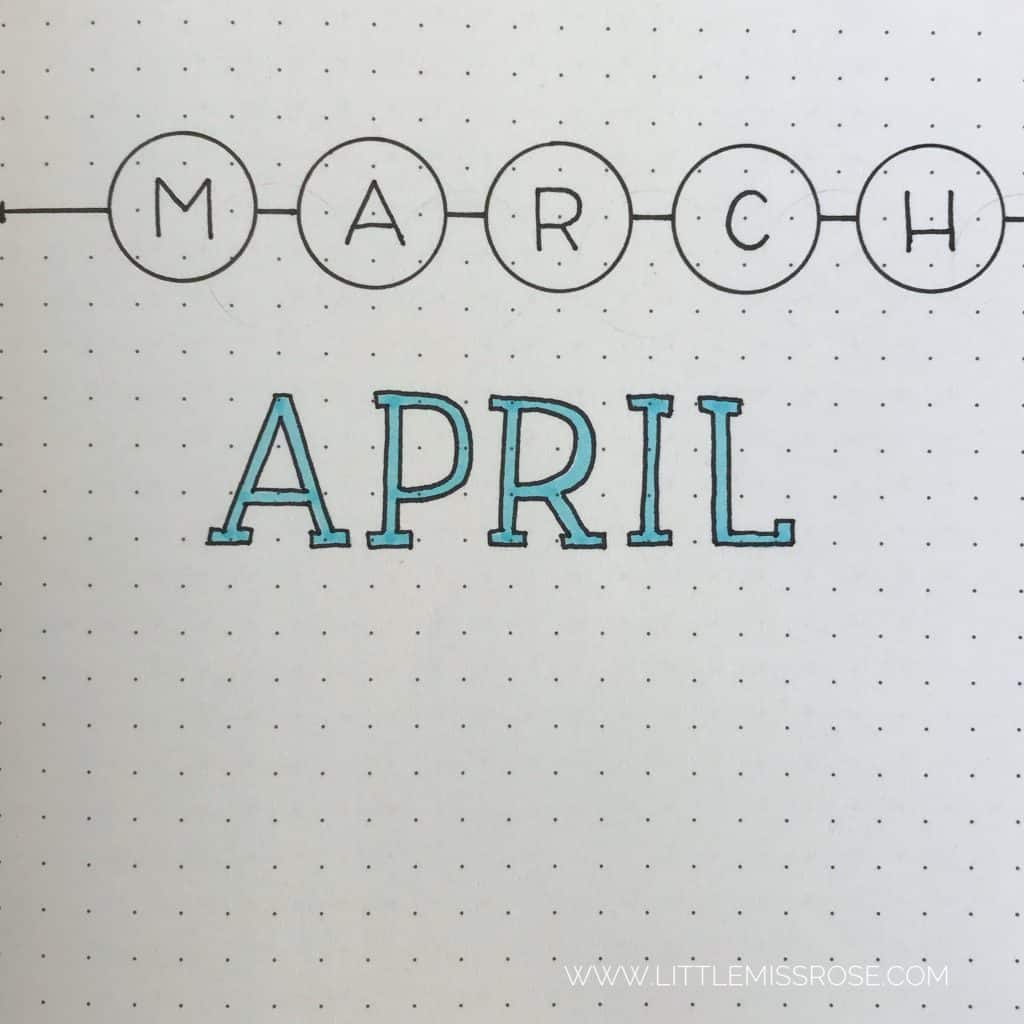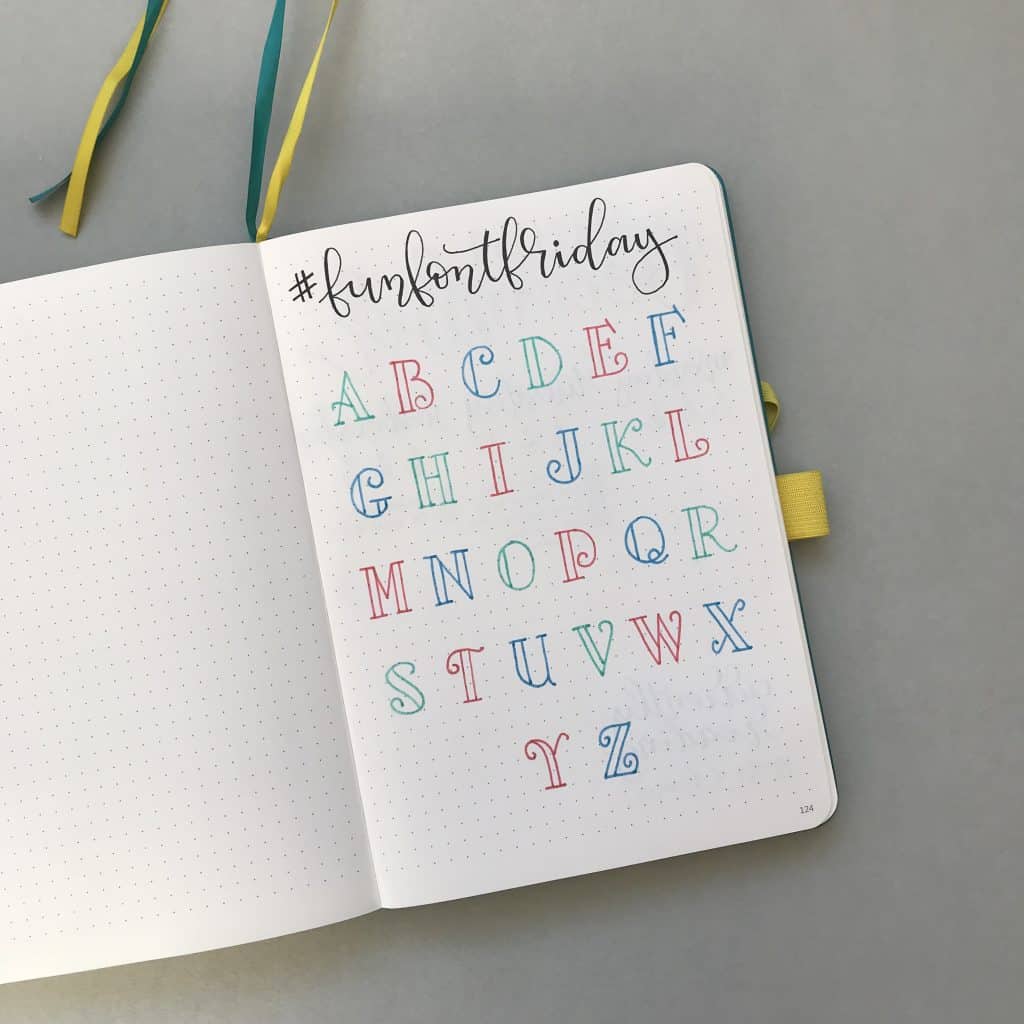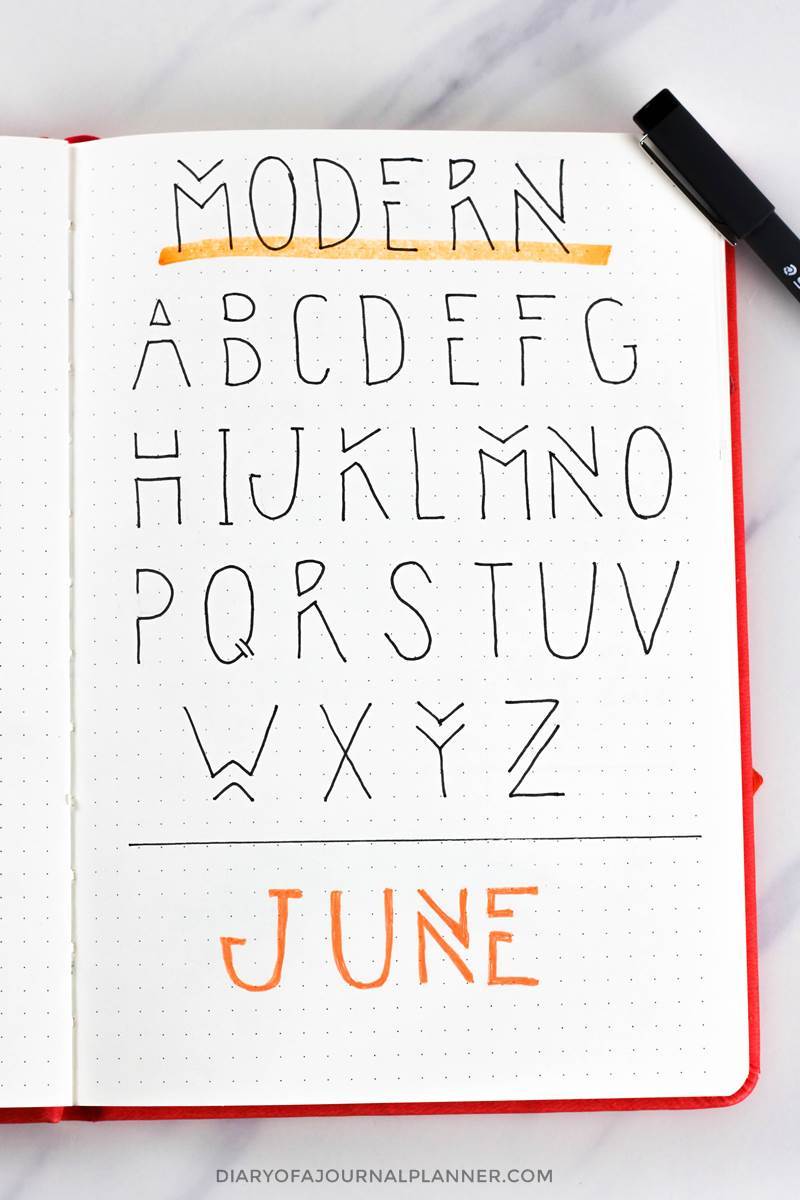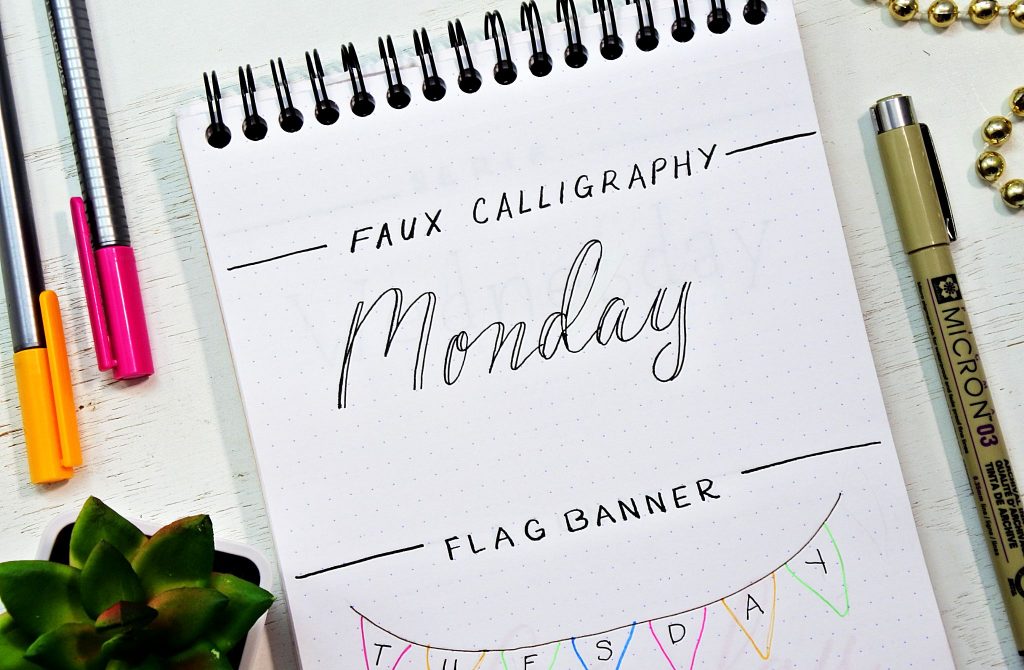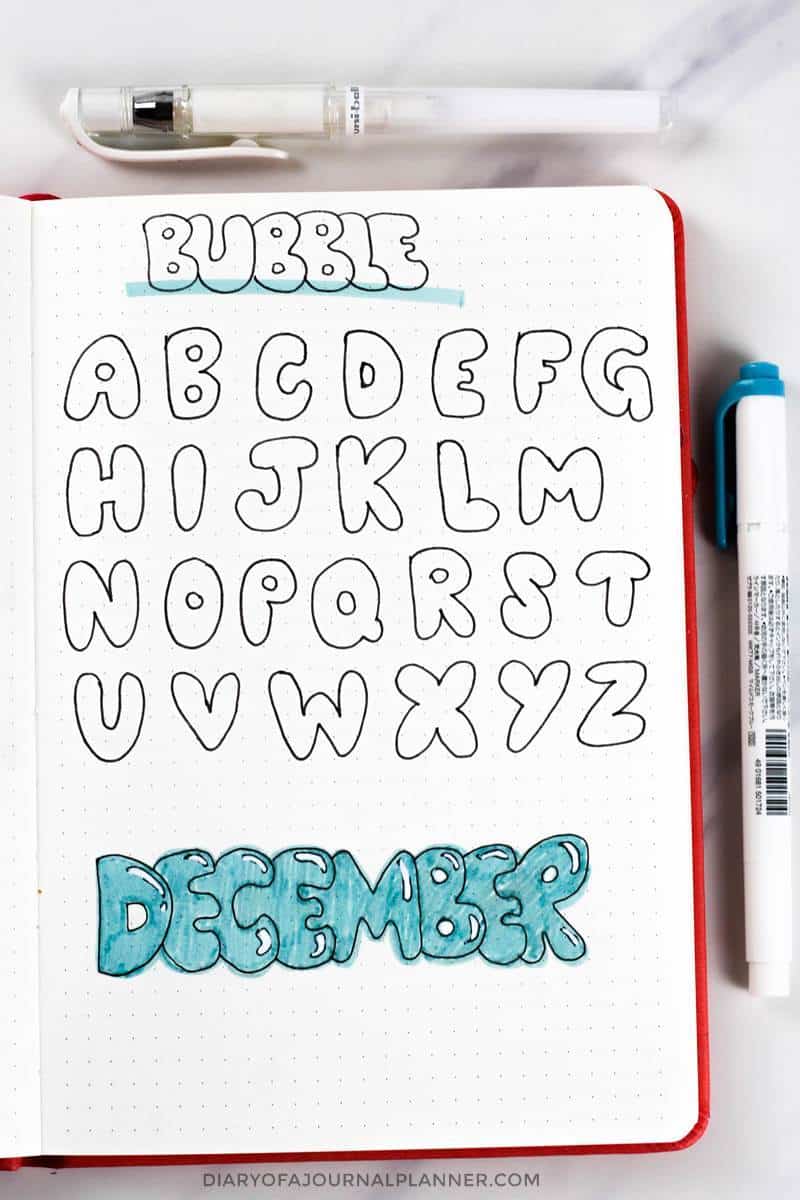
Lettering And Drawing Letters Archives How To Draw Step By Step Drawing Tutorials
Letter fonts easy. Every font is free to download. In the Arabic Latin and Cyrillic alphabets many or all letters in a word are connected sometimes making a word one single complex stroke. If you favor fonts that look like cursive you might as well just grab a pen and write the letter with your own hand.
This worksheet includes examplars and practice letters for uppercase letters A through Z. Unless youre really loving unemployment dont use these fonts in a cover letter. Simple Letters and fonts Symbols emoji.
You can create your own by using faux calligraphy which I show you how to do in this post. Home Tattoos Cute Graffiti Gothic More Graphic fonts Alphabets. Or you can use a simple hand lettered font like this one.
Cursive also known as joint writing or running writing or handwriting is any style of penmanship in which the symbols of the language are written in a conjoined andor flowing manner generally for the purpose of making writing faster. I noticed people were trying to find a generator like fancy letters but were ending up on actual font sites rather than generators of copy-paste text like this one.
This is a generator for text fonts of the cool variety. Lucy the Cat by. This font requires hand-lettering that you can colour in.
It produces these fancy letter fonts by converting your text into a bunch of pseudo-alphabets that were created using various combinations of special symbols from amonst the 100k Unicode symbols that exist. So currently this is basically a duplicate of the above but I think Ill try to collect a few more cool text fonts like the old enlgish one and. Sometimes you need good fonts for print ads that wont be too loud or too complex.
Arial is the standard font for many word processors such as Microsoft Word and Google Docs. First draw up your heading in black pen. Another old-school sans-serif typeface you may want to consider is Helvetica.
The Kelsey style is a modern and quirky font.